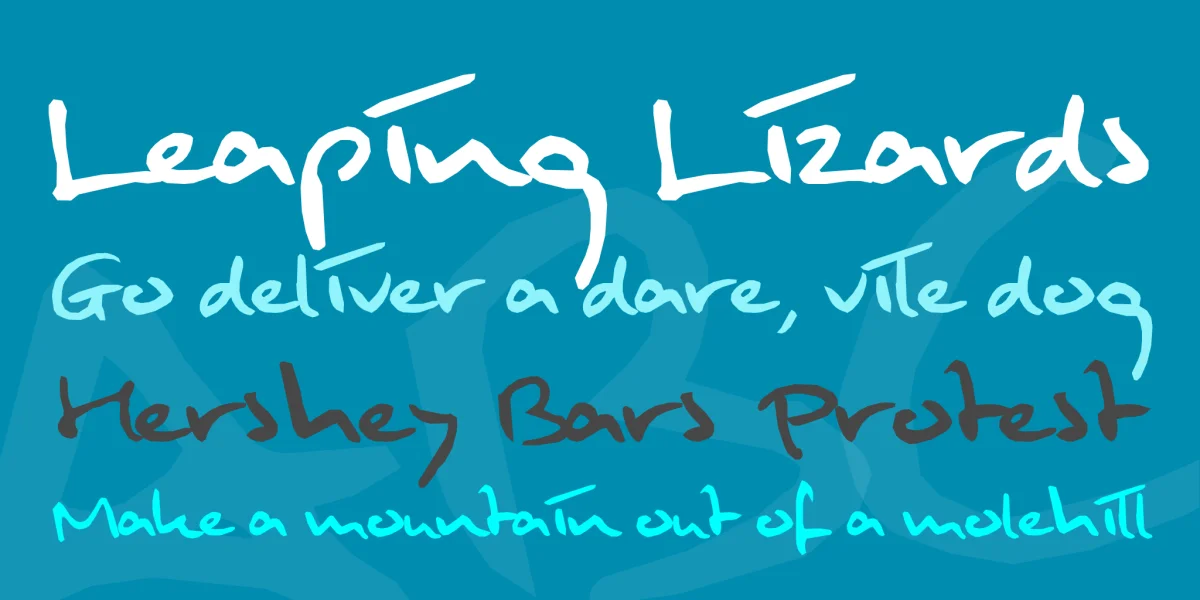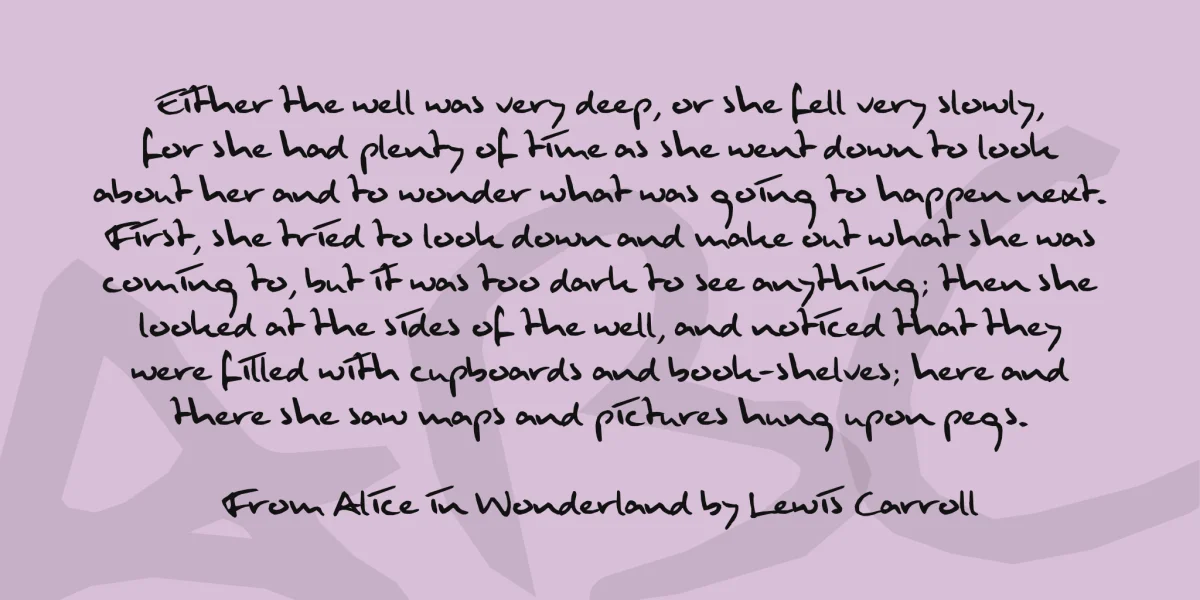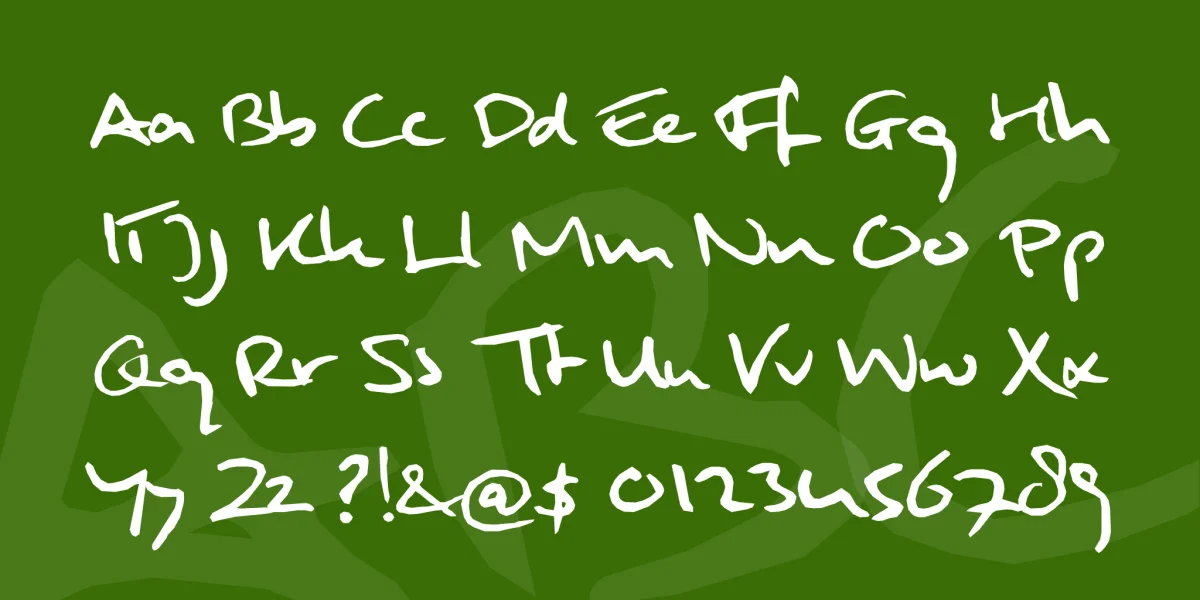
A rendering of my actual handwriting. Started as a side project at the Royal Academy of Arts in The Hague back in 2004.
First released 29 april 2004. But recently added some additional characters. The characteristic 'i' with a line instead of a dot was added to facilitate the typical dutch 'ij' combination that appears in my name.